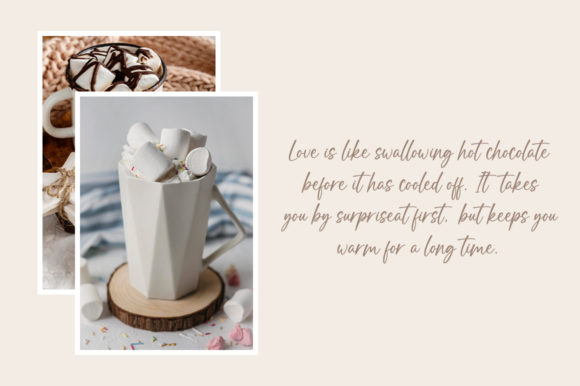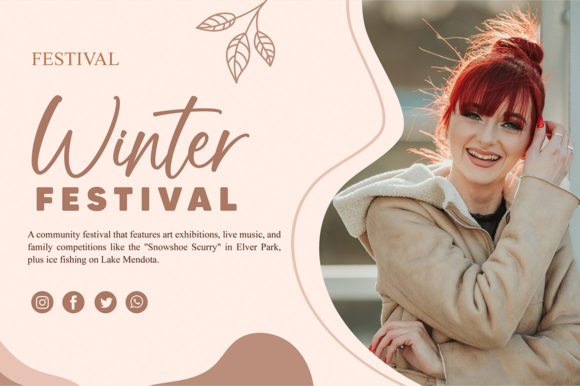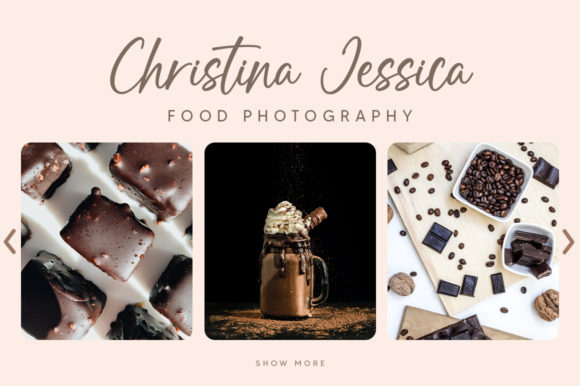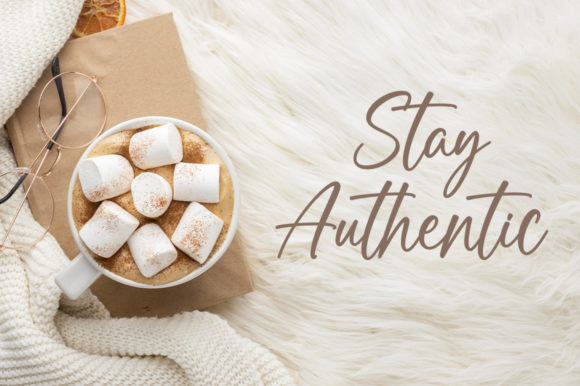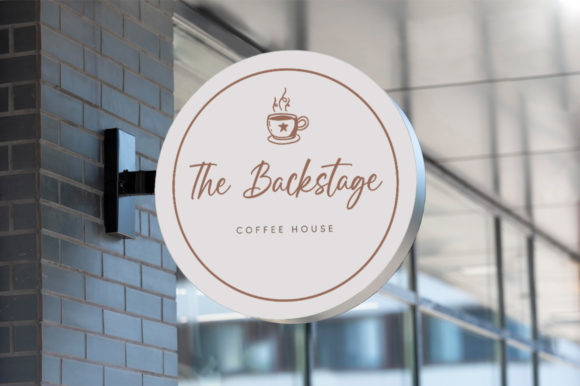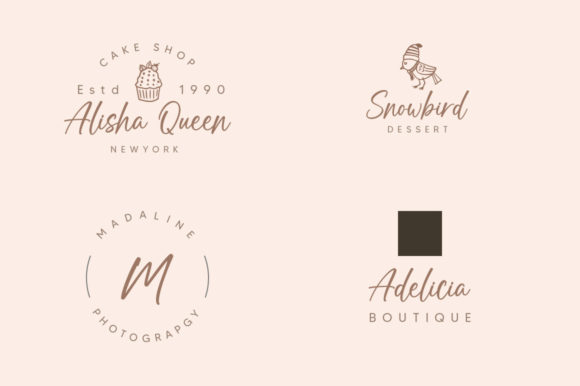
Introduction to Hot Chocolate Font
As you sit at your desk, surrounded by scraps of paper and a steaming cup of coffee, you’re trying to find the perfect font to add a personal touch to your wedding invitations. The clock is ticking, and you’re in need of a high-quality design resource that will make your creative project stand out. That’s when you stumble upon the charming Hot Chocolate Font – a beautiful, elegant script that adds a handwritten feel to any design.
With its smooth, flowing lines and subtle flair, the Hot Chocolate Font is a valuable asset for designers looking to add a touch of sophistication to their work. Whether you’re creating a logo, business card, or greeting card, this font is sure to impress. And the best part? It’s available for free download, complete with a transparent background, making it easy to incorporate into your designs.
Key Features of Hot Chocolate Font
- Includes a large character set with extensive language support
- Designed to be highly legible, even at small font sizes, making it perfect for body text and titles
Honest Review: Hot Chocolate Font
As a designer, I’m always on the lookout for high-quality design resources to elevate my creative projects. Recently, I came across the Hot Chocolate Font, and I’m excited to share my honest review with you.
Here are some things that I think work well:
- ✨ Unique and playful design: The Hot Chocolate Font is perfect for adding a touch of whimsy to your designs.
- ✨ High-quality graphics: The font is crisp and clear, making it ideal for printing or digital use.
- ⚠️ Limited character set: While the font is beautiful, it’s only available in a limited character set, which may not be suitable for longer blocks of text.
- ⚠️ Not ideal for body text: Due to its playful design, the Hot Chocolate Font may not be the best choice for large blocks of body text.
Overall, I think the Hot Chocolate Font is a great addition to any designer’s toolkit. While it may have some limitations, its unique design and high-quality graphics make it a valuable resource for creative projects.
Tips for Getting the Most Out of the Hot Chocolate Font
When using the Hot Chocolate Font, be sure to use it on a transparent background to get the best results. You can also experiment with different font sizes and colors to create a unique and eye-catching design.
The Hot Chocolate Font is perfect for creating invitations, menus, and other designs that require a touch of warmth and elegance. It’s also great for use in social media graphics, blog posts, and other online content.